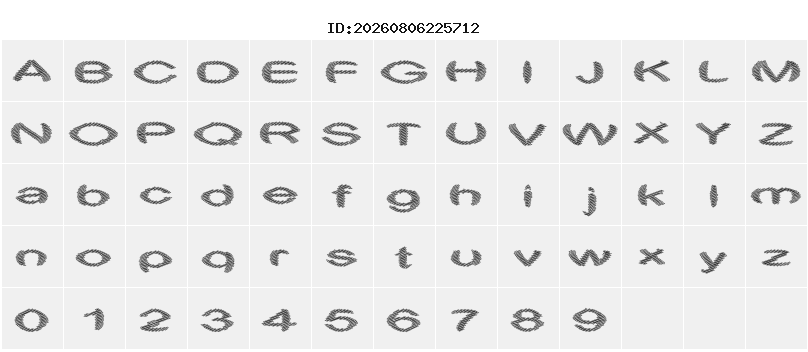
About Obtuse two.ttf
Obtuse two.ttf is a modern, elegant sans-serif font designed for ultimate readability and visual harmony. Perfect for branding, headlines, web design, and print materials.